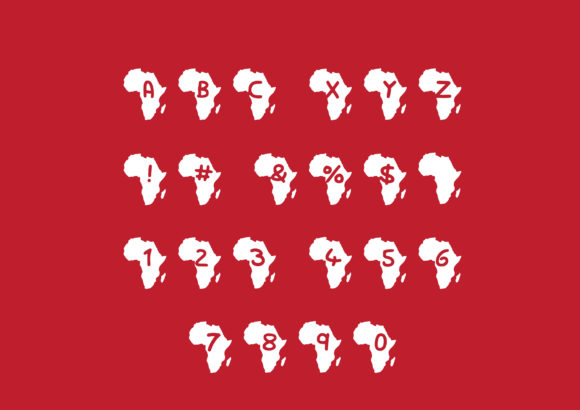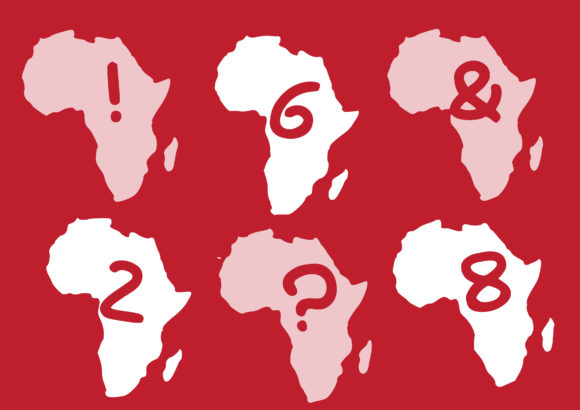
Introduction to Play Africa Font Font
Fonts play a crucial role in design, and the Play Africa Font font is a typeface that brings both character and versatility to any project. Whether you’re working on a branding project, a website, or a print design, the Play Africa Font font offers a unique style that can elevate your work.
Play is a cool looking and interesting decorative font, featuring the African Continent on each character.
No matter the topic, this font will be an incredible asset to your fontsβ library, as it has the potential to elevate any creation .
Key Features of Play Africa Font Font
Why Choose Play Africa Font Font?
The Play Africa Font font is more than just a typeface β it’s a design tool that helps you communicate your message with style and clarity. Its unique character set and versatile design make it suitable for a wide range of applications, from elegant invitations to bold headlines.
With its carefully crafted letterforms and balanced proportions, the Play Africa Font font ensures readability and visual appeal across all mediums.
What makes Play Africa Font font special?
The Play Africa Font font stands out with its unique design, exceptional readability, and versatility across various design applications.